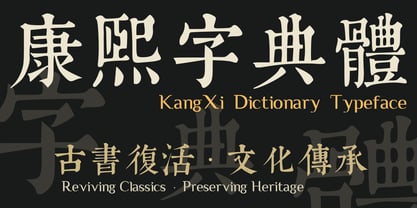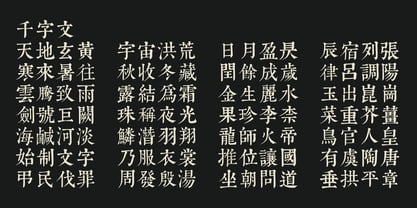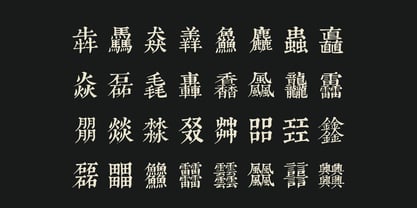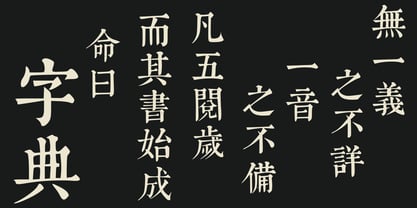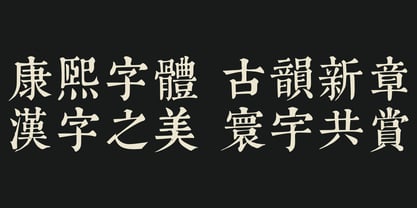
KangXi Dictionary
von KangXiZiDian
Die Schriftfamilie KangXi Dictionary wurde von Tan Keong Khon entworfen und von KangXiZiDian veröffentlicht. KangXi Dictionary enthält 1 Stile. Mehr über diese Familie
The KangXi Dictionary (1716 AD) stands as the ultimate authority on the Chinese writing system, commissioned by the KangXi Emperor of the Qing Dynasty. Now, the KangXi Dictionary Typeface brings the majestic soul of the original imperial "Wuying Palace Edition" into the digital age, serving as the foundational anchor of a monumental historical revival that bridges Eastern tradition and modern design.
The Foundational Heritage Identity As the core flagship of our digitization project, this typeface focuses on the grand, authoritative headers of the dictionary. It honors the pristine "woodcut" texture—where the ink meets the grain of the pear-wood blocks—offering a tactile, historical warmth that modern, sterile digital fonts cannot replicate. Every stroke radiates the raw power and scholarly gravity of Imperial Qing Dynasty craftsmanship.
Key Technical Features:
• Complete Character Set: Unlike piecemeal releases, this definitive edition offers fully functional and complete digital support for the dictionary's entire 47,043 historical Chinese characters, unlocking an unprecedented typographic resource for scholars and creators alike.
• Hand-Engineered Precision: Rather than pursuing sterile digital perfection, this revival intentionally preserves the natural, organic irregularities and lively size variations of hand-carved woodblocks. This ensures the "Shenyun" (divine spirit) and authentic typographic rhythm are fully preserved.
A Harmonious Typographic Ecosystem The KangXi Dictionary Typeface serves as the majestic centerpiece of a comprehensive historical font system. It pairs flawlessly and shares identical metrics alongside its specialized sibling families:
• Kangxi Dictionary Typeface: The definitive core edition focusing on majestic headers and imperial woodblock aesthetics.
• Kangxi Dictionary Shiwen Typeface: Specially tailored for explanatory texts, annotations, and academic readability.
• Kangxi Dictionary Tushi Typeface: Capturing distinct historical and calligraphic variations for specialized artistic expressions.
Ideal Design Uses:
• Premium Publishing: Perfect for historical novels, academic journals, museum exhibition materials, and collector's editions.
• Cultural Branding: Ideal for high-end tea packaging, traditional medicine, luxury heritage goods, and identity design.
• Art & Posters: Its bold, authoritative presence makes it a standout choice for book covers, theatrical titles, and grand signage.
Designed by Tan Keong Khon Born from a passion for preserving cultural heritage, this revival ensures that the KangXi legacy continues to inspire designers worldwide in the 21st century.
Designer: Tan Keong Khon
Foundry: KangXiZiDian